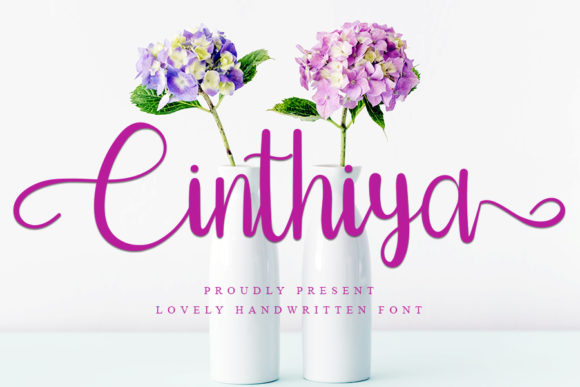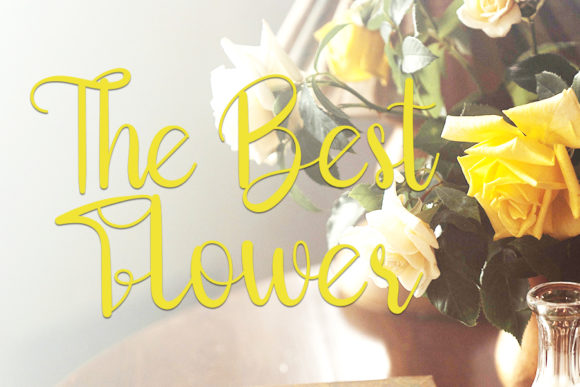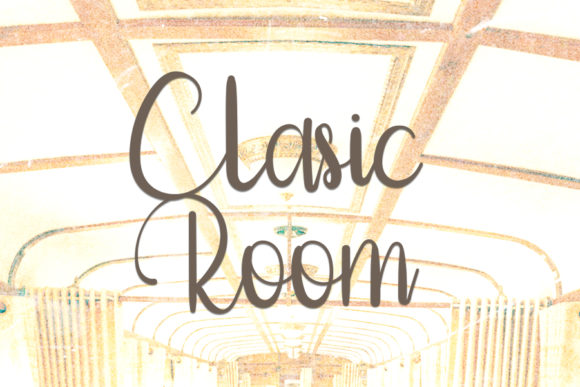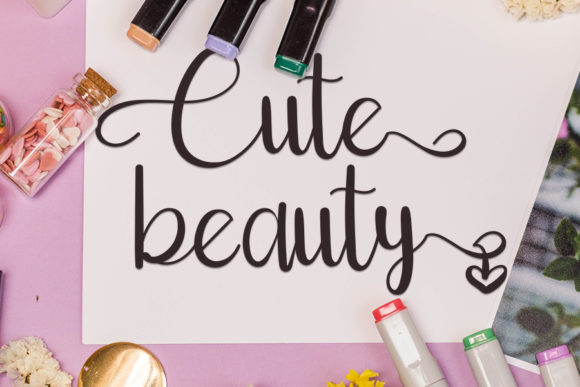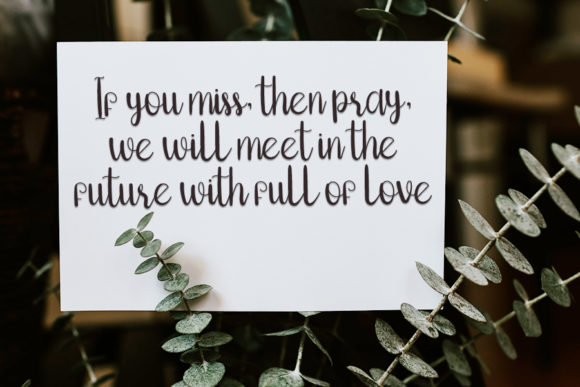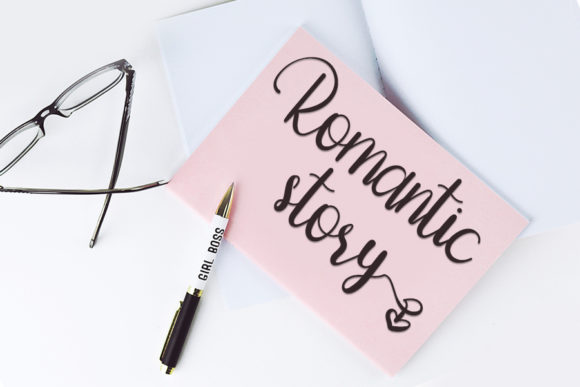
Cinthiya Font
About Cinthiya Font
Cinthiya is a romantic and jolly calligraphy font. Its distinct and well rounded letters make this font a masterpiece. Cinthiya is PUA encoded which means you can access all of the glyphs and swashes with ease!
Fall in love with its flexible style and use it to create dazzling designs!